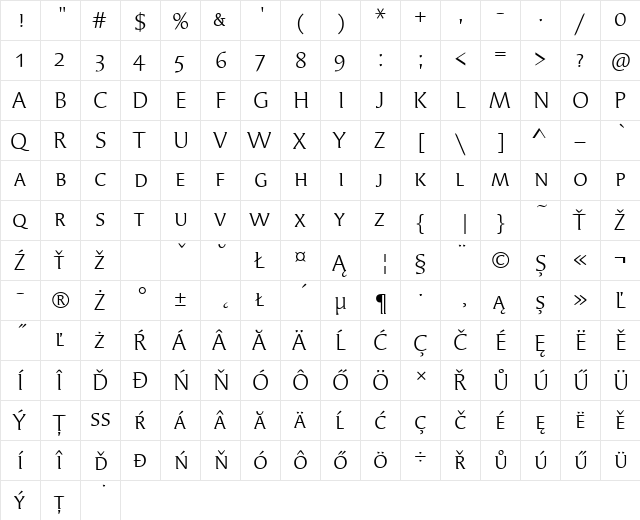
SyndorSCItcTEEBoo Regular
Design Context for SyndorSCItcTEEBoo Typeface
SyndorSCItcTEEBoo offers clean, dependable letterforms without strong stylistic allegiance, making it a practical choice for designers who need flexibility.
Pro Tip: Use SyndorSCItcTEEBoo in both headline and body roles to test its range before committing to a single application.